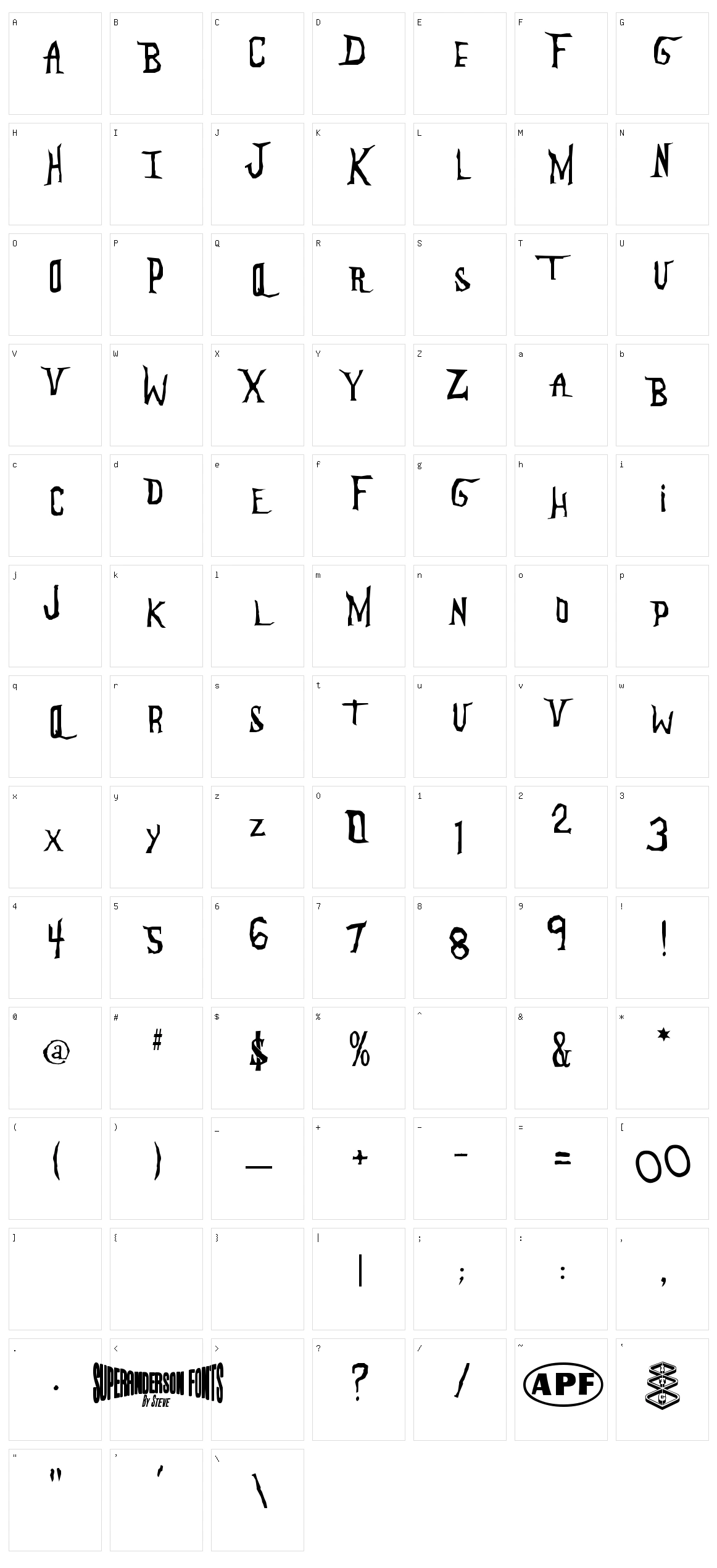
The Mysterons Font is based on the opening title of Captian Scarlet and The Mysterons.
Title: Anderson The Mysterons
Category: TV Theme: The Mysterons® 2005